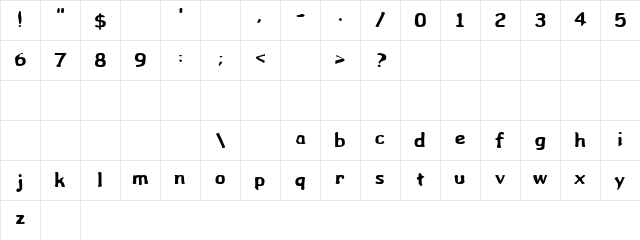
Wibble Regular
Design Context for Wibble
Wibble is a composed and adaptable typeface that performs quietly and consistently across a wide range of design contexts.